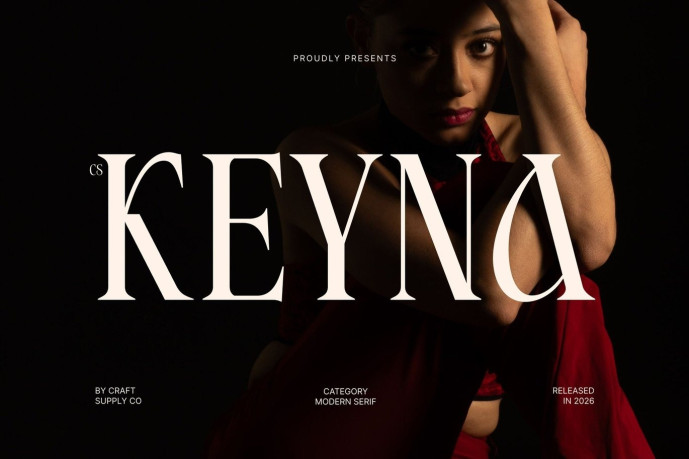
Keyna – Modern Serif Font
Designer: Craft Supply Co.
CS Keyna – Modern Serif Font: Where Editorial Elegance Meets Timeless Luxury Modern Serif Font with Refined Sophistication This is a modern serif font featuring elegant proportions, fine wedge serifs, and beautifully refined letterforms. Its balanced high-end construction creates a graceful rhythm that feels sophisticated, polished, and timeless. Every character is carefully crafted to deliver exceptional readability while expressing understated luxury.
Luxurious Design with Editorial Inspiration This font blends contemporary precision with classic serif elegance. Its delicate serif details and refined structure create a clean yet expressive appearance, making it an ideal choice for projects that require a luxurious and fashion-forward aesthetic. The result is typography that feels exclusive, stylish, and effortlessly modern.
Timeless Typography with Premium Appeal Designed to elevate sophisticated visual identities, that creates a distinctive presence across both print and digital media. Its elegant letterforms communicate confidence, quality, and refinement, making every headline, logo, and brand message feel memorable and prestigious.
Perfect for logos, Editorial Layouts, and Premium Visual Identities Perfect for logos, editorial layouts, beauty packaging, perfume labels, magazines, invitations, luxury product packaging, advertising campaigns, and premium visual identities. Its fusion of elegant proportions, fine wedge serifs, and editorial-inspired sophistication makes it ideal for projects that communicate exclusivity, refinement, and timeless style. With its combination of modern serif elegance and luxurious craftsmanship, that delivers a distinctive and unforgettable typographic statement.